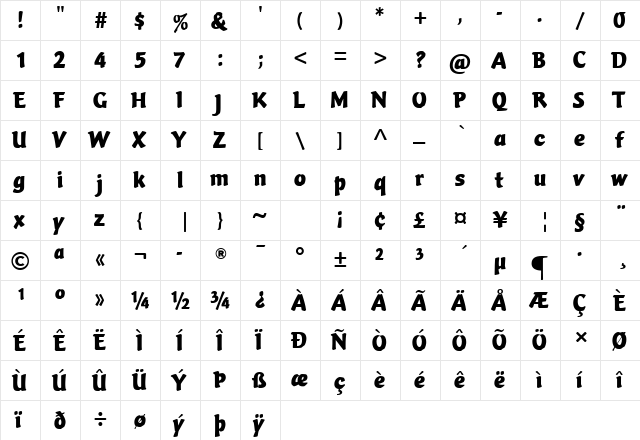
Vario Com Regular
| Foundry | Linotype GmbH |
| Designer | Hermann Zapf |
Design Context for Vario Com Typeface
Vario Com is a composed and adaptable typeface that performs quietly and consistently across a wide range of design contexts.